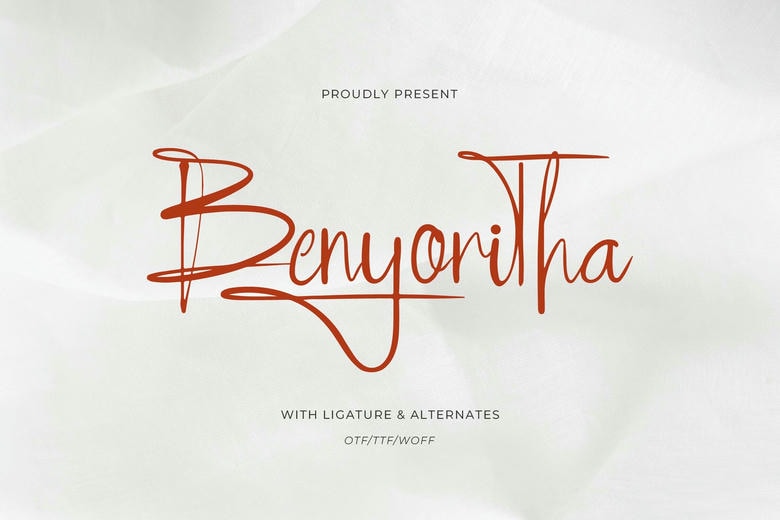
Benyoritha Font
Benyoritha is another handwritten script that seems quite warm and friendly comparing to other scripts that look rather strict. Due to the serifs, tall letters, and flowing curves, this font is suitable for drafting messages, letters of invitation or any artistic purposes. It looks exclusive and cozy and it gives an extra charm and personality to your work.
Benyoritha Handwritten Font